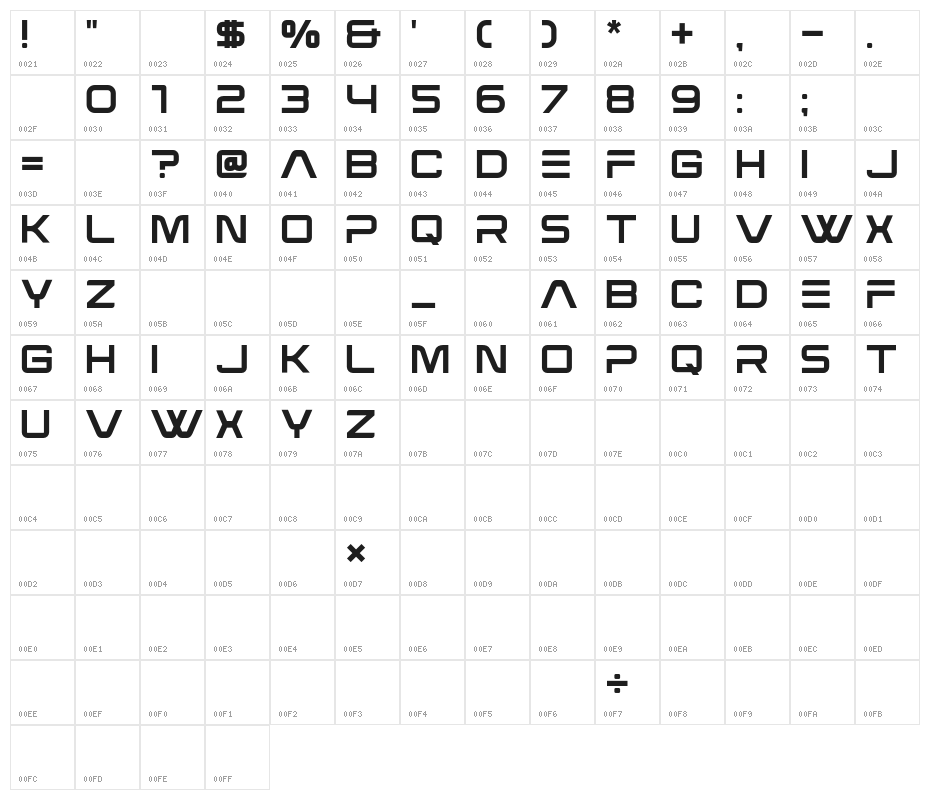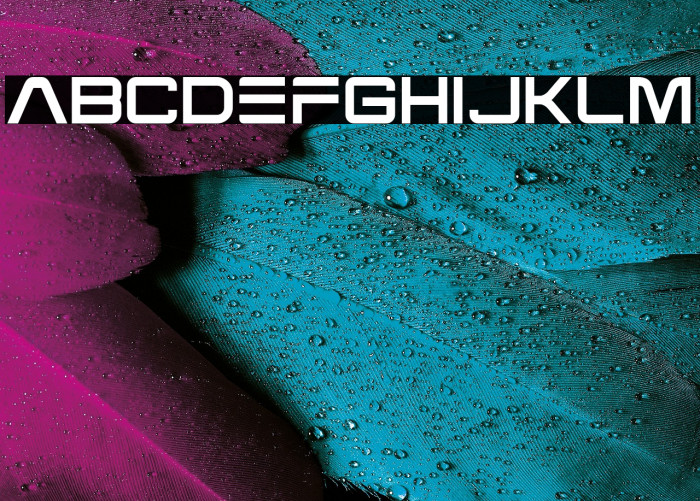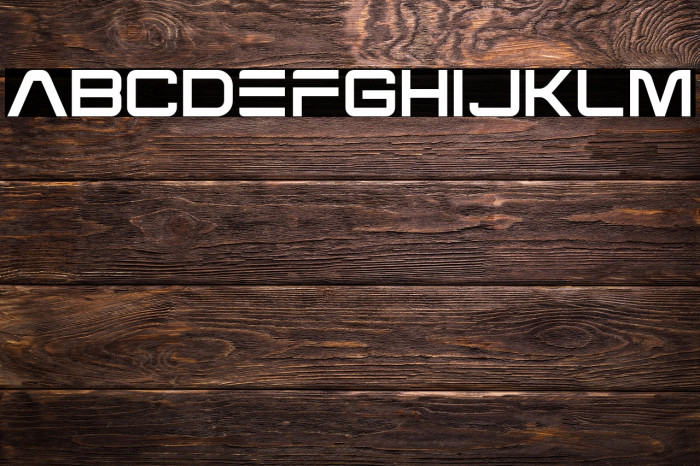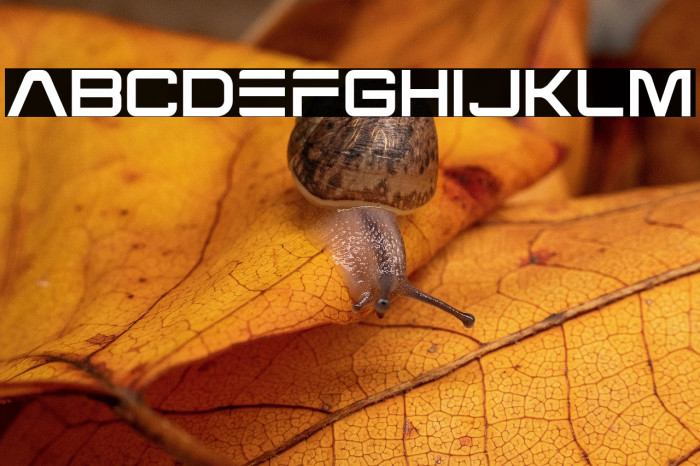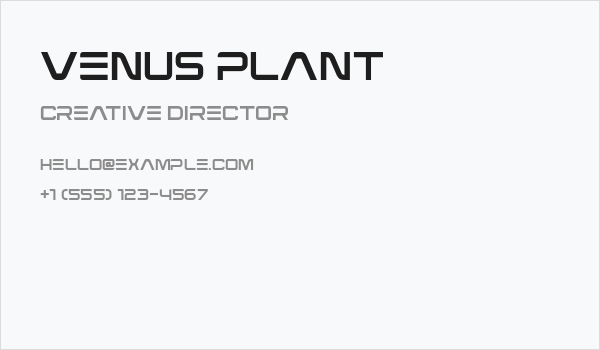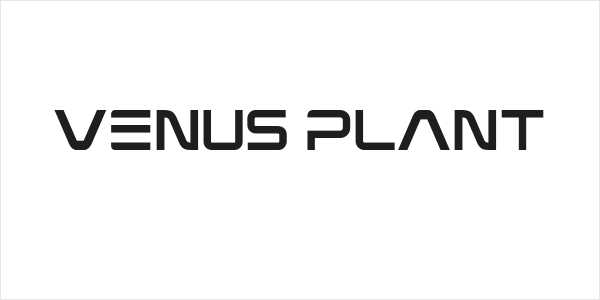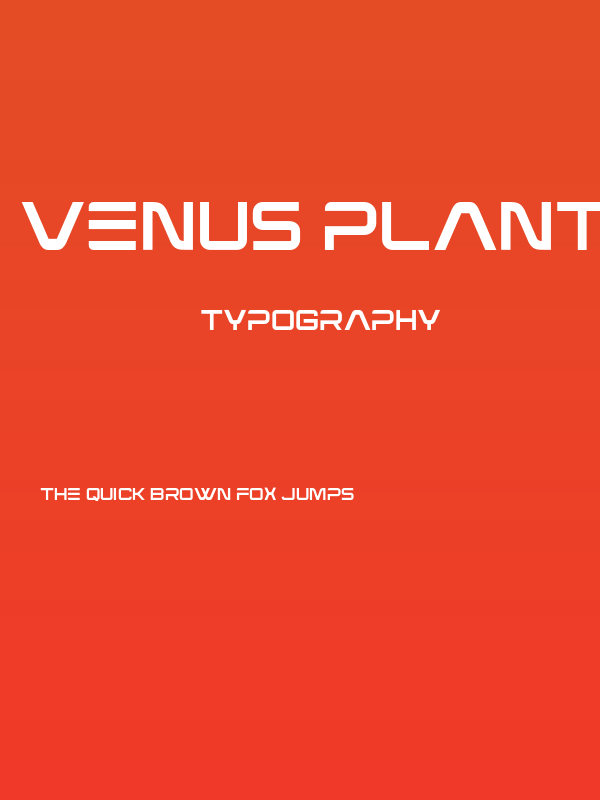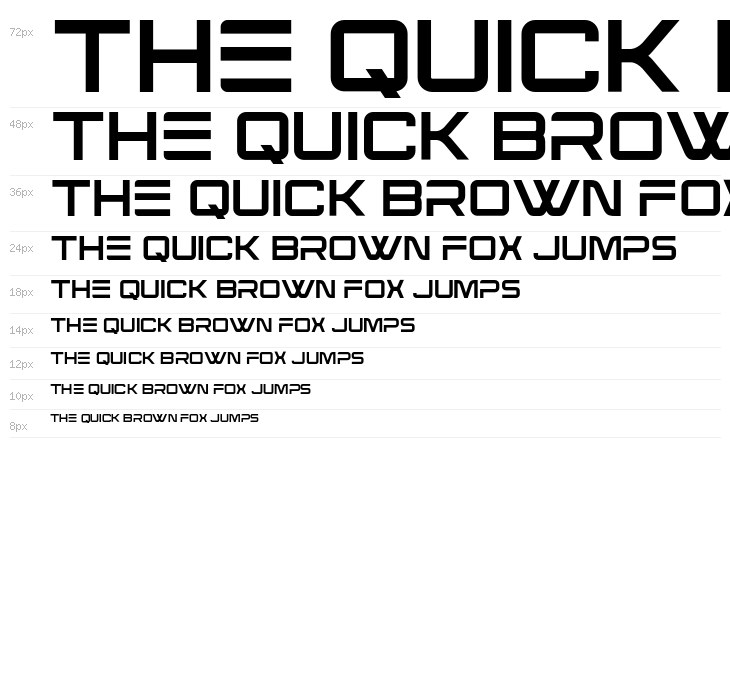
Venus Plant Font
Venus Plant Description
This font features a futuristic and geometric design with a distinctively modern appeal. The characters are constructed with clean, straight lines and sharp angles, giving them a sleek and technical appearance. The uppercase and lowercase letters maintain a consistent style, with uniform stroke widths that contribute to a balanced and cohesive look. The numerals and special characters are designed to match the overall aesthetic, ensuring visual harmony across all elements. This font's design is both bold and minimalistic, making it suitable for a variety of contemporary applications.
| Use Case | Headlines, Logos, Digital Interfaces |
| Proposed Projects | Ideal for technology branding, sci-fi themed projects, modern advertising, and digital interfaces. |